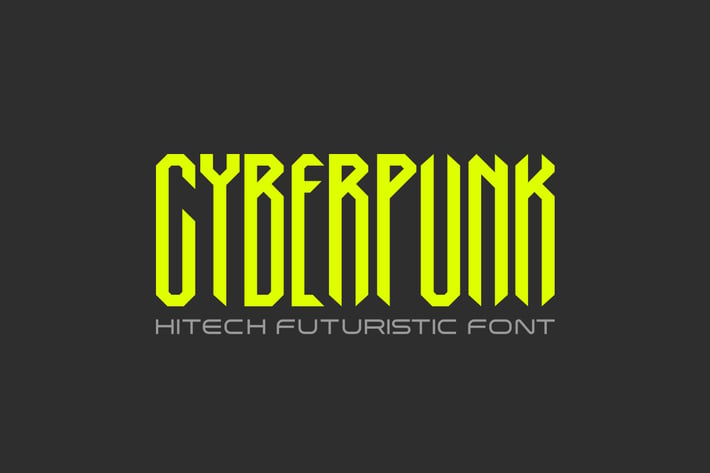
Cyberpunk Font
Cyberpunk Technology Gothic Condensed Font
CYBERPUNK is two fonts which helping to create hi-tech cyberpunk and gothic atmosphere and style.
It is good looking as header and as text both.
Use it in your projects in such areas as robots & androids, cyberpunk, hi-tech, future, virtual reality, space, army, games and many others.
Consists of two types:
- Regular
- Design (with cut edges - see the preview)
IMHO it is best looking with Uppercase letters. Hope it will help to create a lot of great projects:)